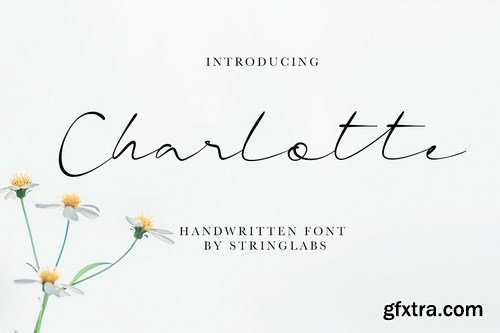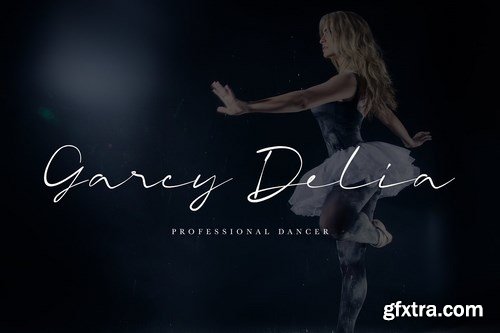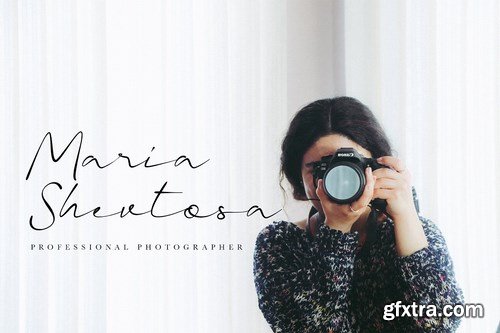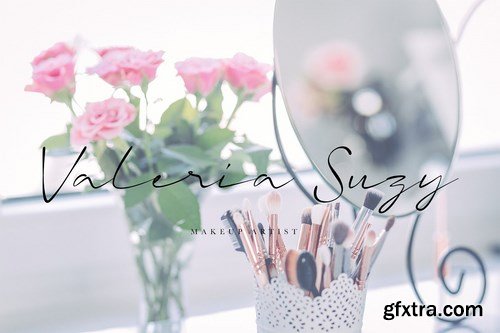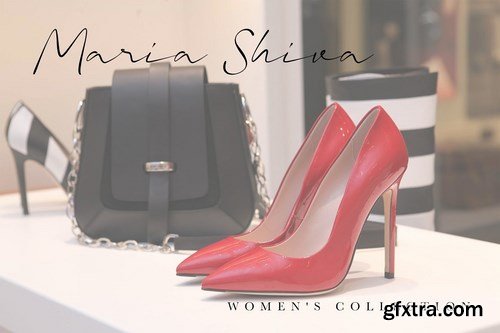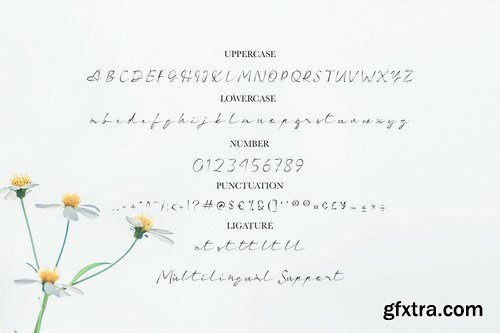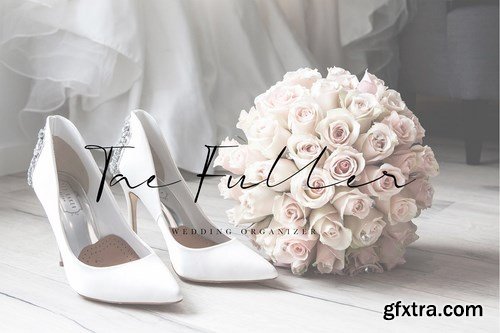
Introducing Charlotte - Casual Handwritten Font
This Font can be used for any variety of purposes, such as: Signature, Photography, Wedding Ceremony, Invitation, Packaging, Logo Type, Branding Design, Fashion and also can be used for Business purpose.